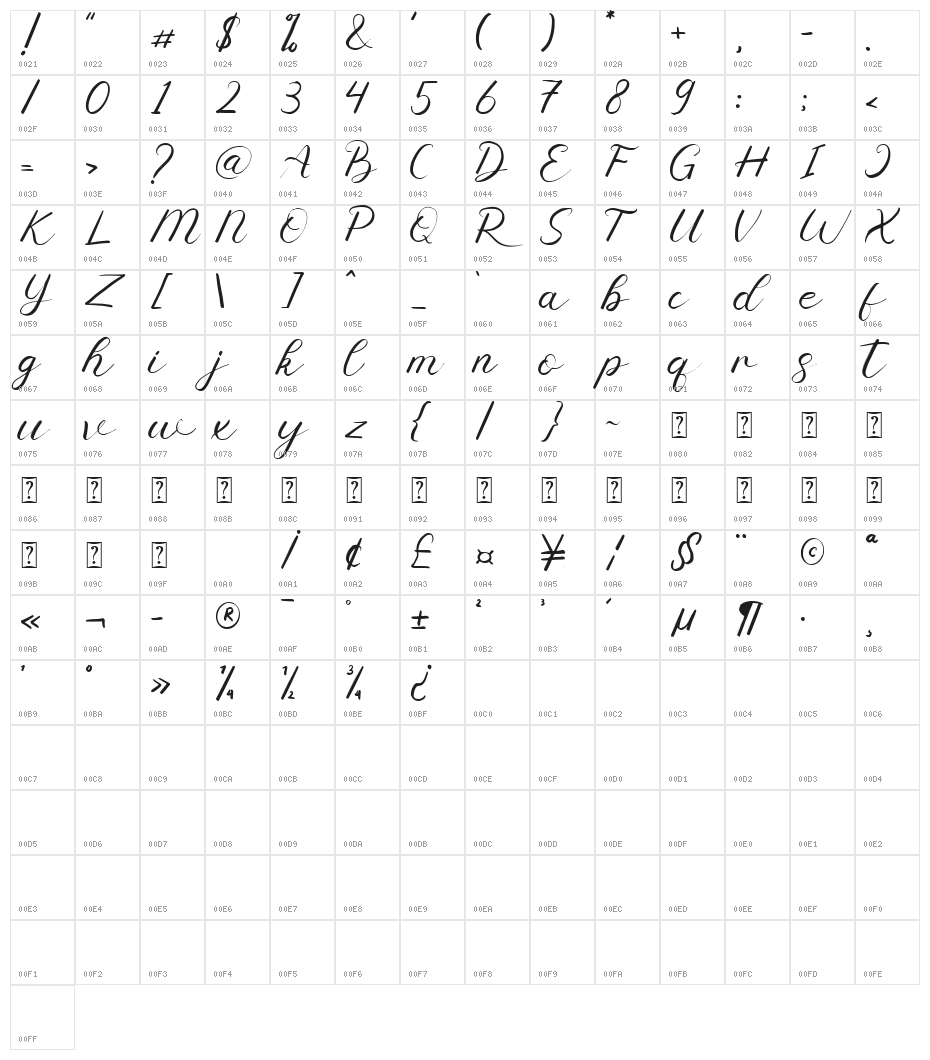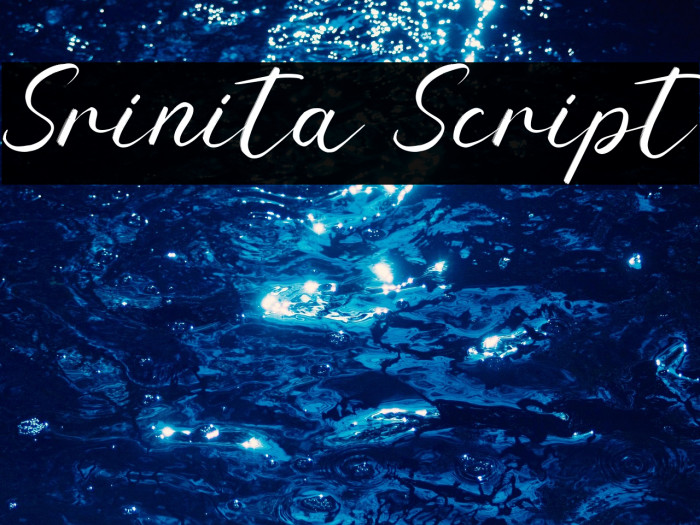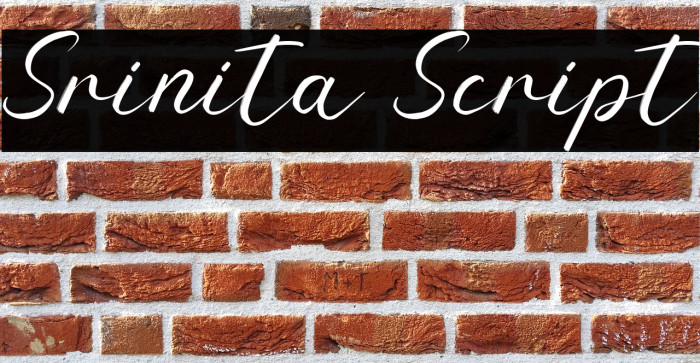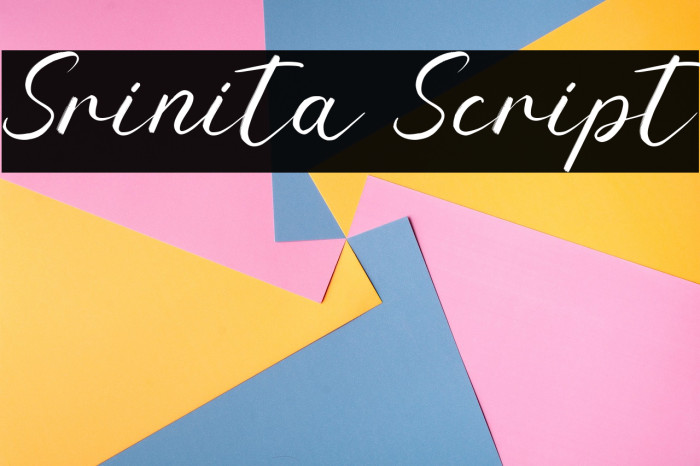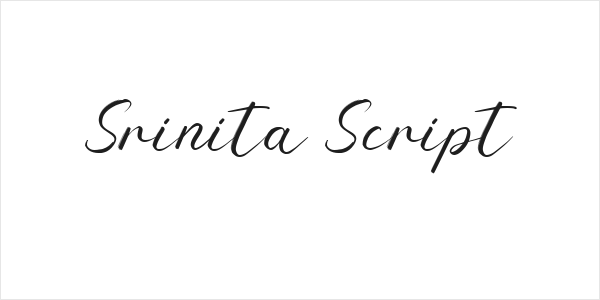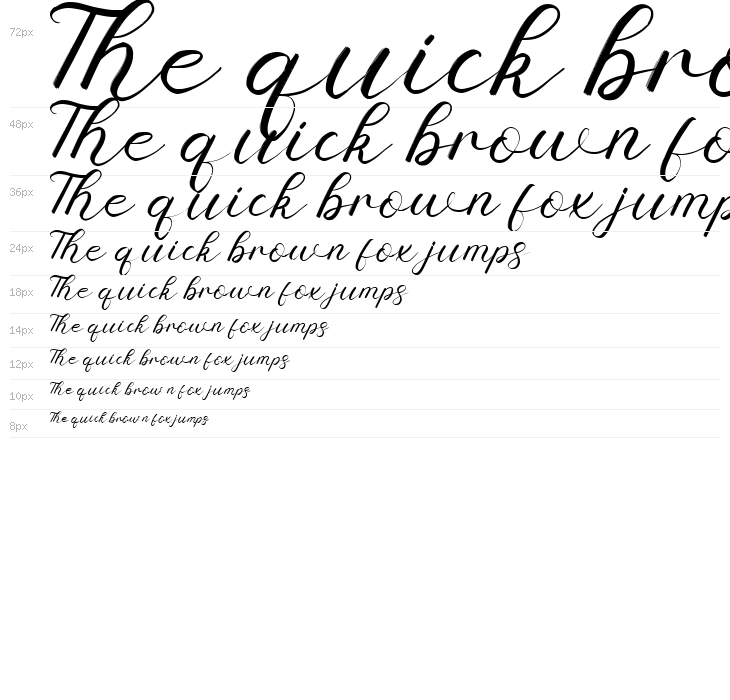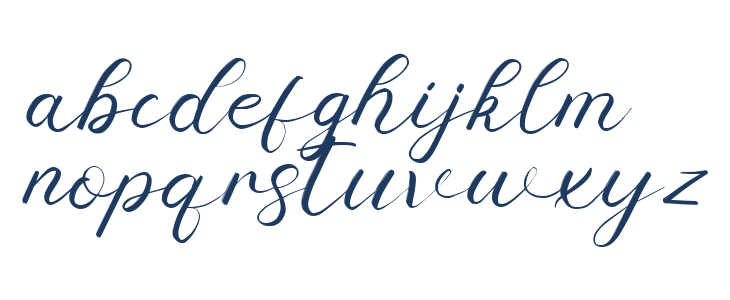
Srinita Script Font
Srinita Script Description
This elegant script font features a flowing, cursive style with graceful, sweeping curves and delicate strokes. The uppercase letters are characterized by their tall, slender forms and intricate loops, while the lowercase letters maintain a consistent fluidity and connectedness. The numerals are distinct yet harmonize well with the overall script style, offering a touch of sophistication. Special characters are designed with the same attention to detail, ensuring a cohesive look across all glyphs. This font exudes a sense of elegance and refinement, making it ideal for projects that require a personal or artistic touch.
| Overall Style | Elegant |
| Use Case | Logos, Invitations, Decorative text |
| Proposed Projects | Ideal for wedding invitations, greeting cards, branding, and elegant logo designs. |